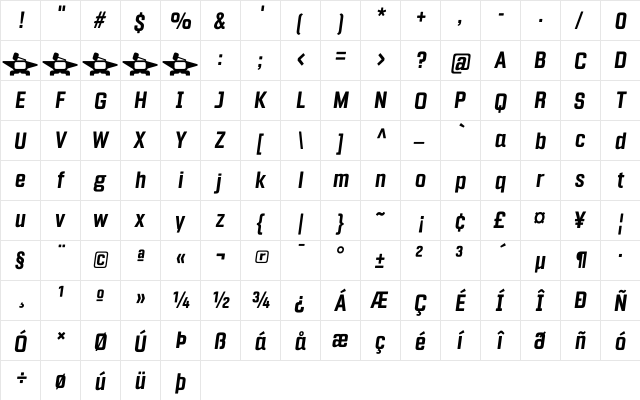
Fragua Bold Italic
Design Context for Fragua Typeface
Fragua takes a measured approach to typography — its balanced proportions and neutral character make it a reliable workhorse for both digital and print work. The slanted form adds forward momentum and visual energy. The heavy weight commands attention and anchors typographic hierarchies.
Pro Tip: Use Fragua for emphasis, pull quotes, and subheadings where its slanted energy can add rhythm to the layout.